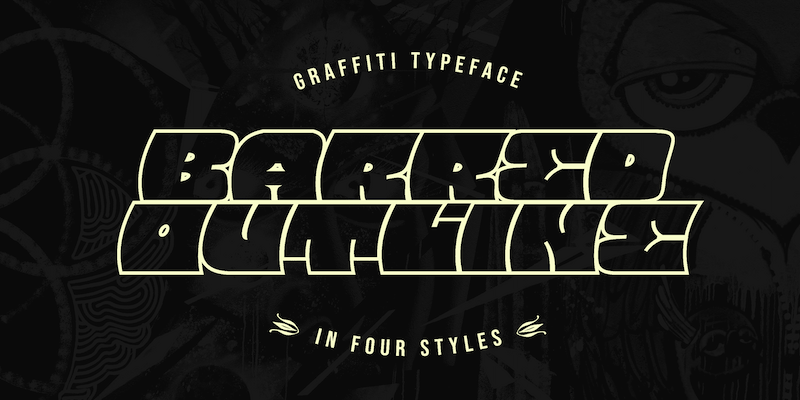
Preview and download Barred Outline Font. Created by Måns Grebäck in Script Graffiti styles with Free for personal use license.
NOTE: This font is for PERSONAL USE ONLY! To purchase a commercial license, visit: http://mn.sg/barred In a nice graffiti style, this wholecar font has a forward movement with a cartoony look. Drawn and created by Mans Greback between 2022 to 2023, it has a fat look and a vivid personality. For questions, please visit www.mansgreback.com/faq |